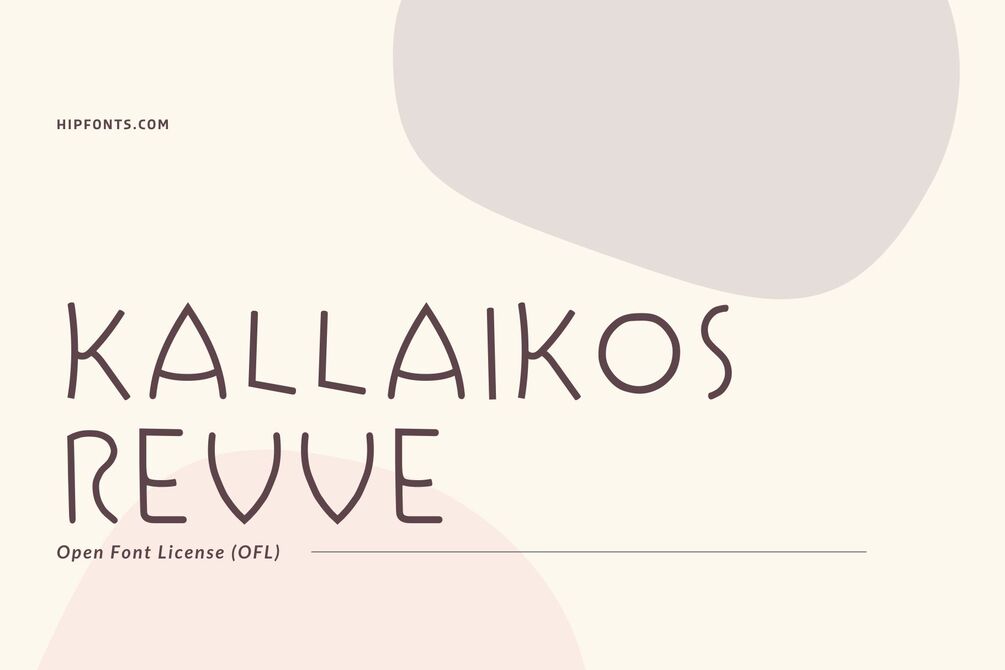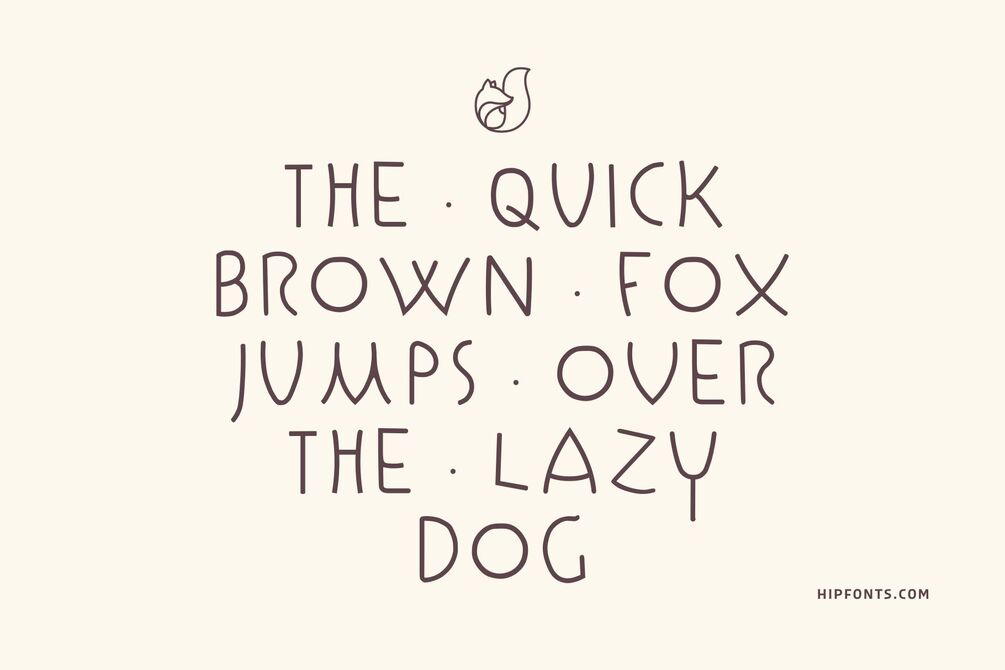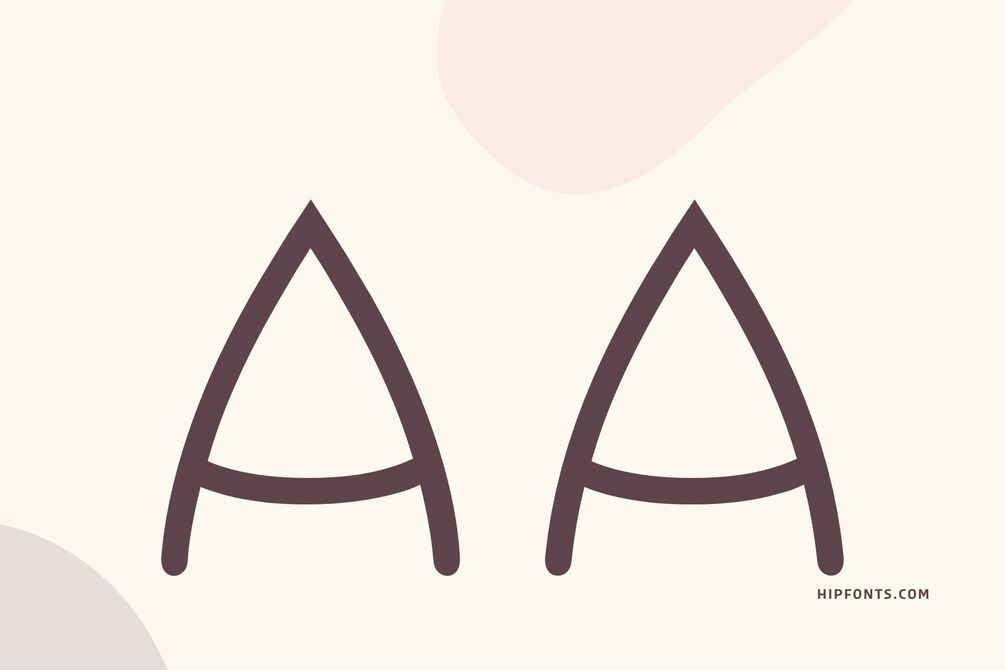
Kallaikos Revve
Kallaikos Revve is a modern and playful font that combines contemporary aesthetics with a touch of whimsy.
Its rounded letterforms and smooth curves create a friendly and approachable appearance, making it an excellent choice for designs targeting a youthful audience or projects that aim to convey a sense of energy and vibrancy. Whether used in posters, packaging, or social media graphics, Kallaikos Revve adds a cheerful and modern flair to any design.
The versatility of this font allows it to adapt to a wide range of applications, from playful and lighthearted designs to bold and eye-catching compositions, making it a versatile choice for designers seeking to infuse their projects with a sense of fun and modernity.